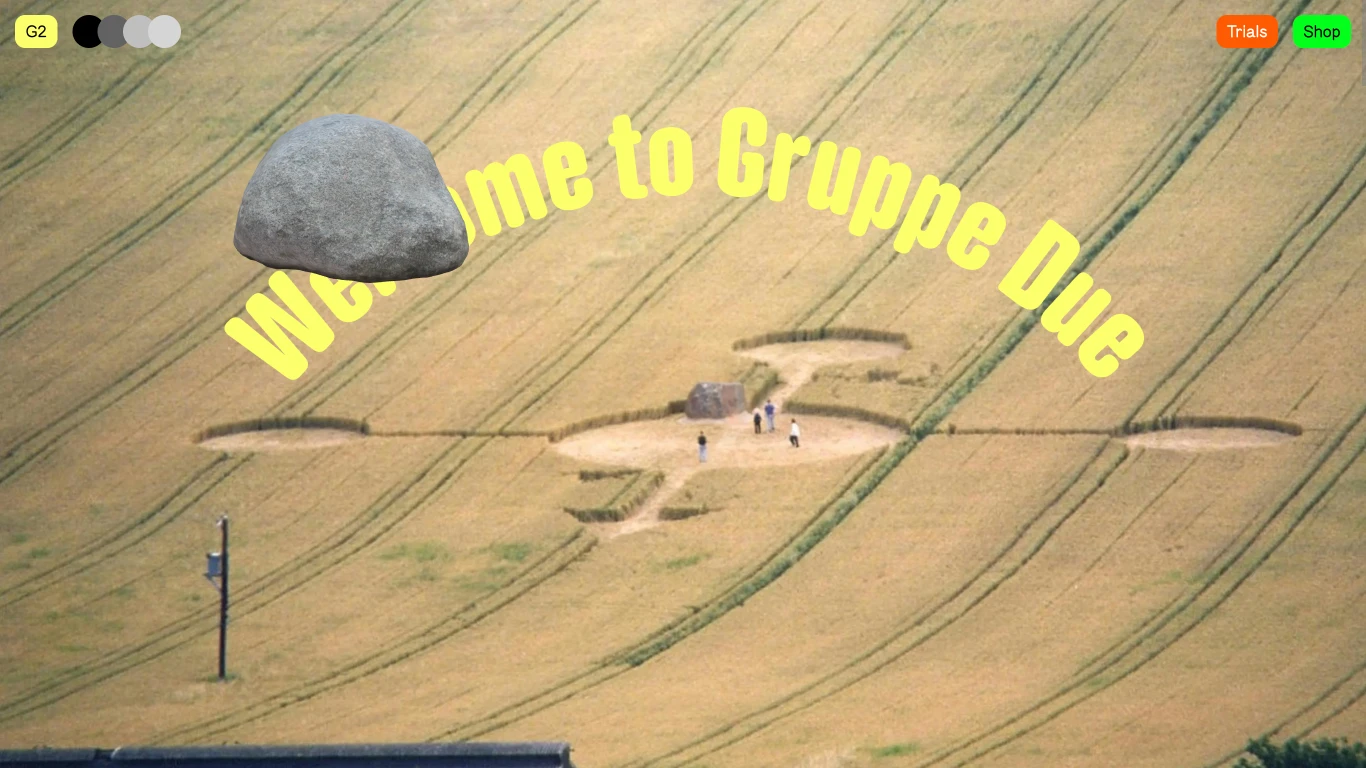
Gruppo Due
Germany; Switzerland; Kingdom
2020
​Gruppo Due is a type design studio and label founded in 2020 by Moritz Appich, Jonas Grünwald, Bruno Jacoby, and Massimiliano Audretsch. Operating remotely across Europe, the studio offers both retail and custom typefaces. Notable typefaces include G2 Kosmos, a modernistic monoline typeface; G2 TGR, a versatile sans-serif family; and G2 Ciao, inspired by historical sketches of William Addison Dwiggins. Gruppo Due has collaborated with clients such as the University of Arts and Design Karlsruhe and Frankfurt University of Music and Performing Arts.